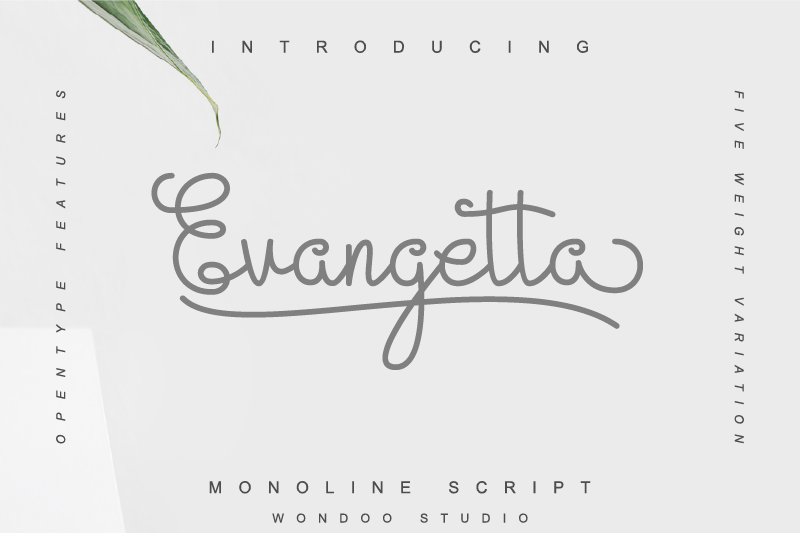
Font name: | Evangetta |
Author: | Herya Wildan |
Evangetta Minimalist Monoline Script Evangetta is a monoline script font with five weight variations and opentype features. Beautiful and minimalist handwriting fonts with authentic charm, add a minimalist and elegant feel to any design project. This is perfect for branding, logos, brochures, business cards, wedding stationary, invitations, and every other design which needs a handwritten touch. For full version and commercial license, please visit my store : https://graphicriver.net/user/wondoostudio https://www.creativefabrica.com/designer/wondoostudio/ Any donation is very appreciated. Paypal account for donation : https://paypal.me/Wondoostudio And follow our instagram for update : @Wondoostudio contact me via email [Wondoostudio@gmail.com] |